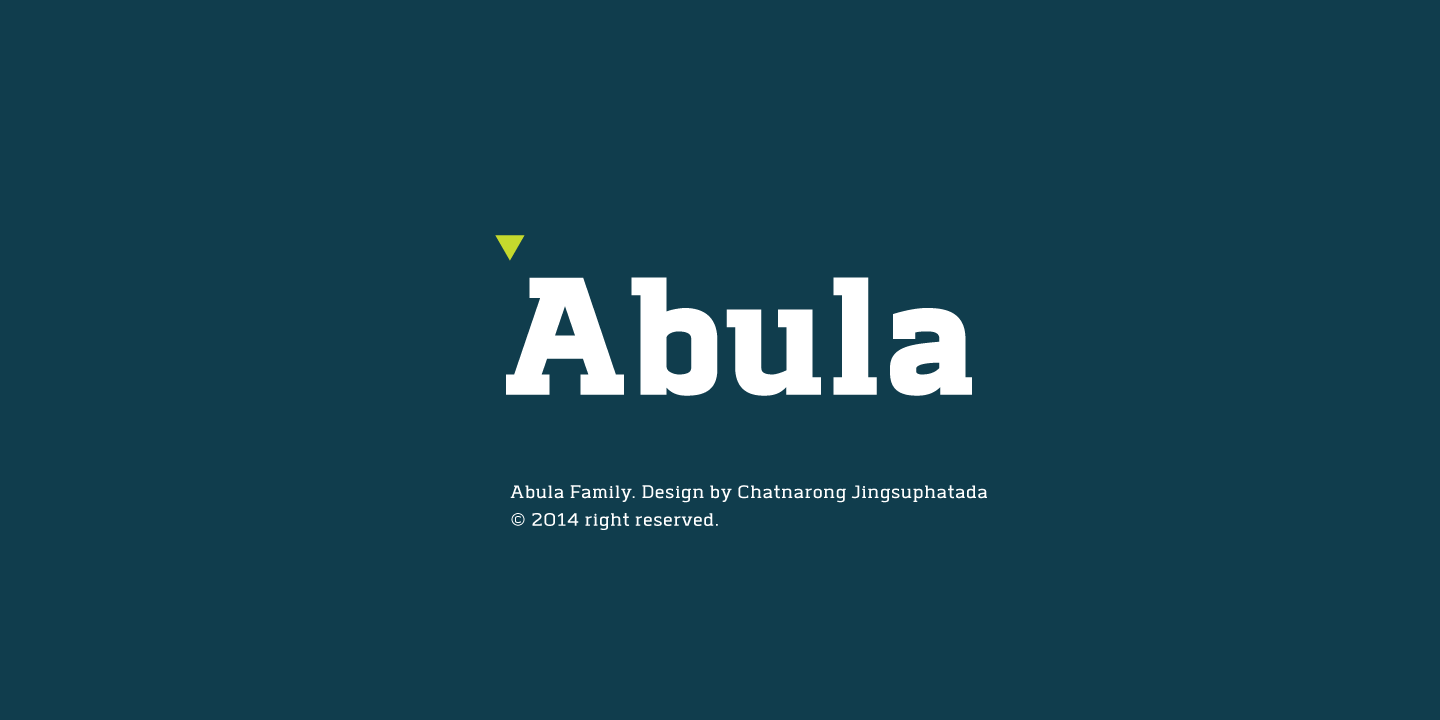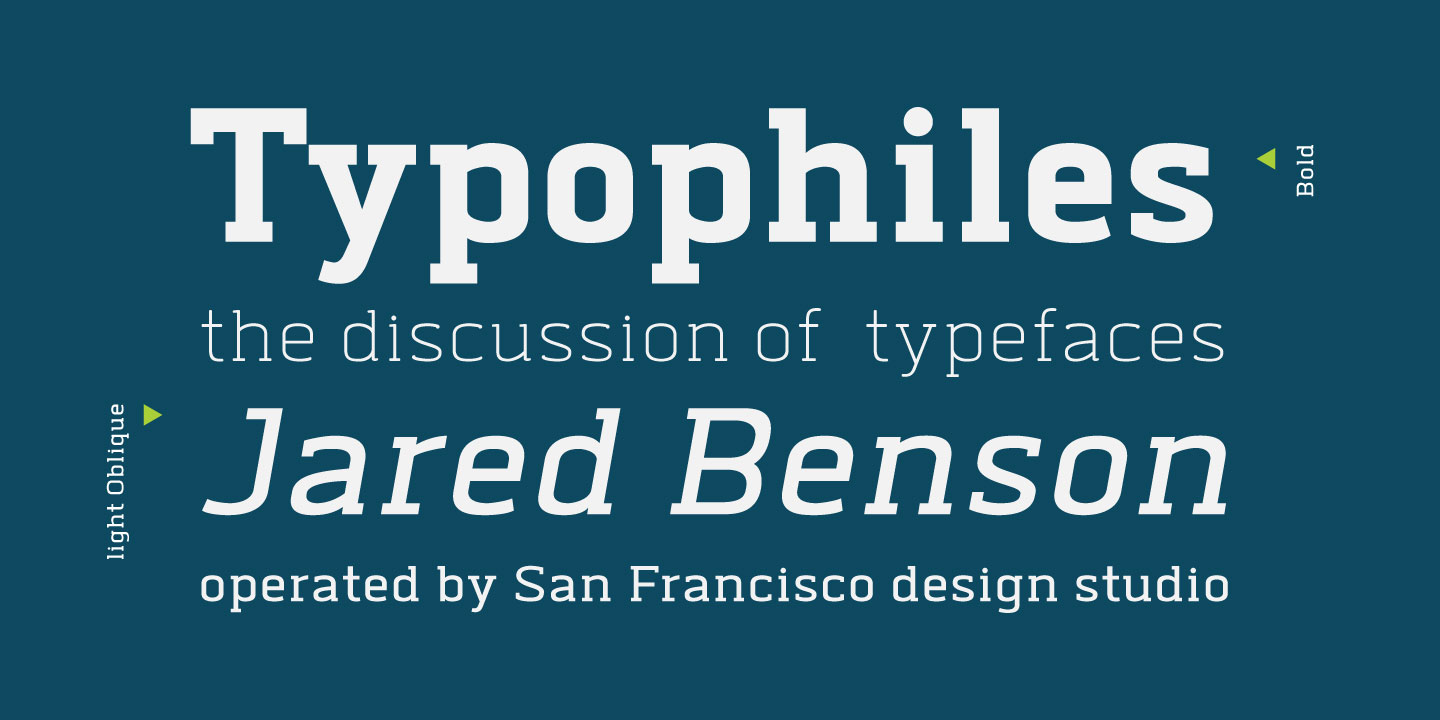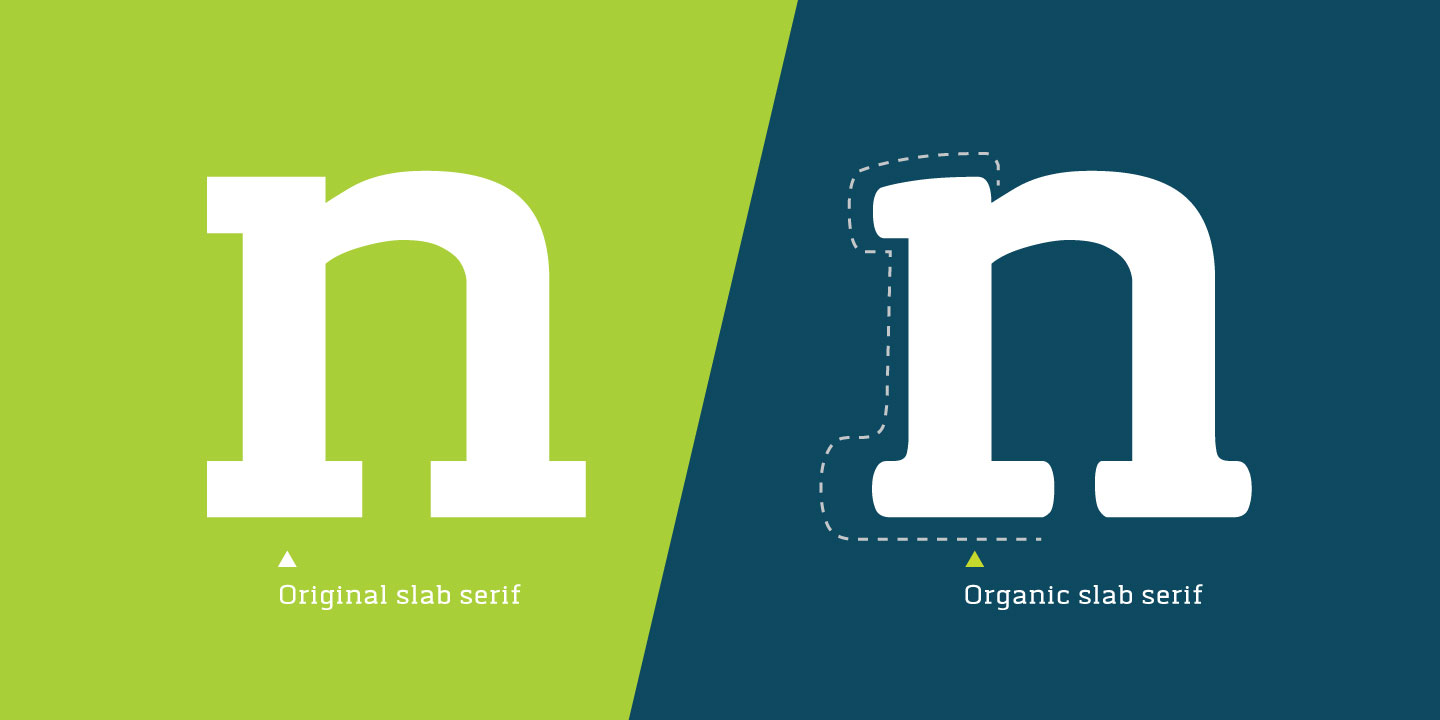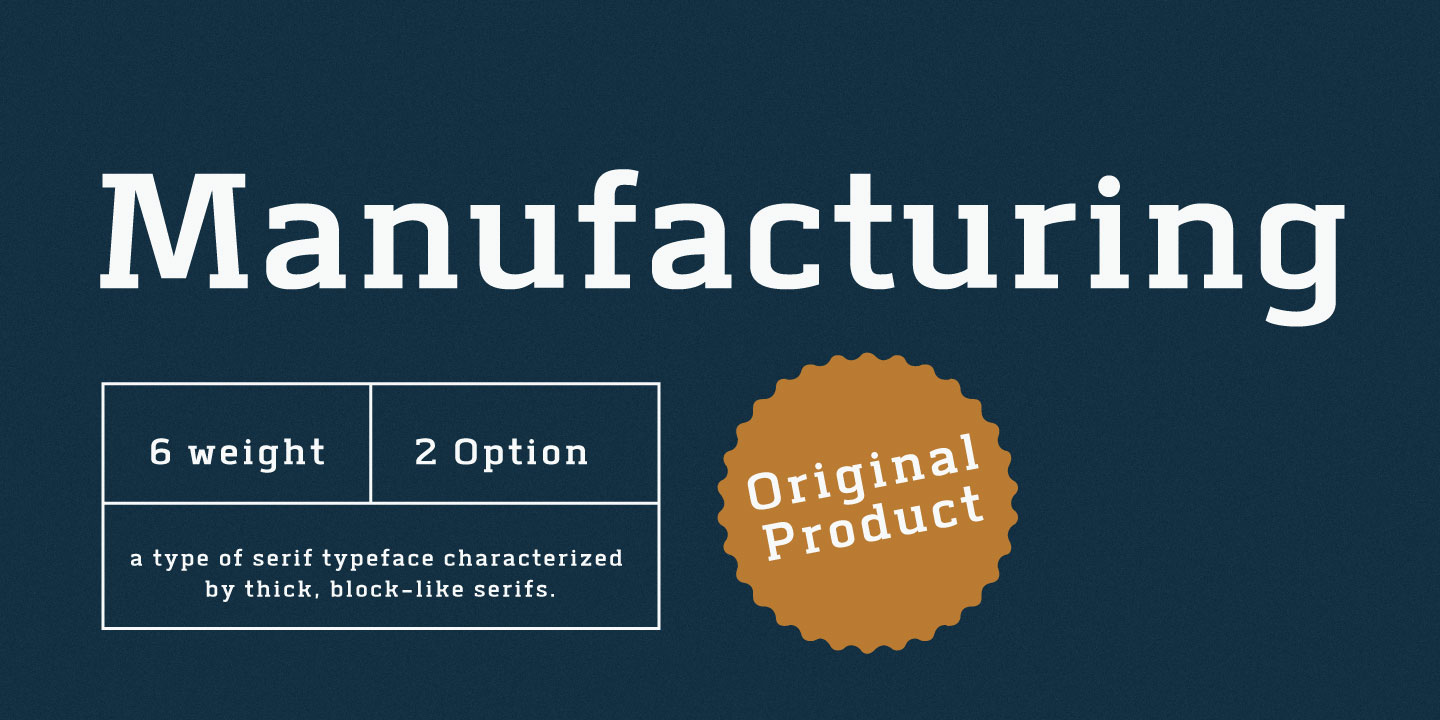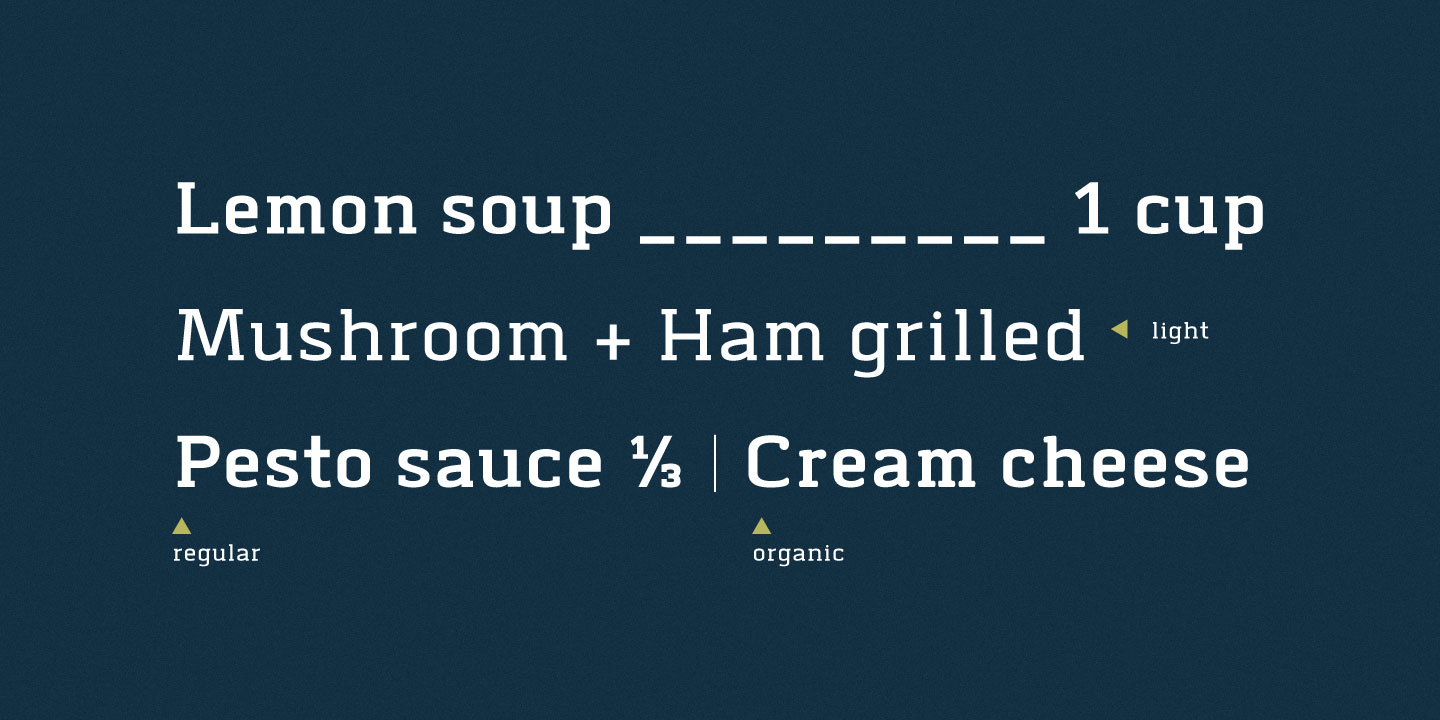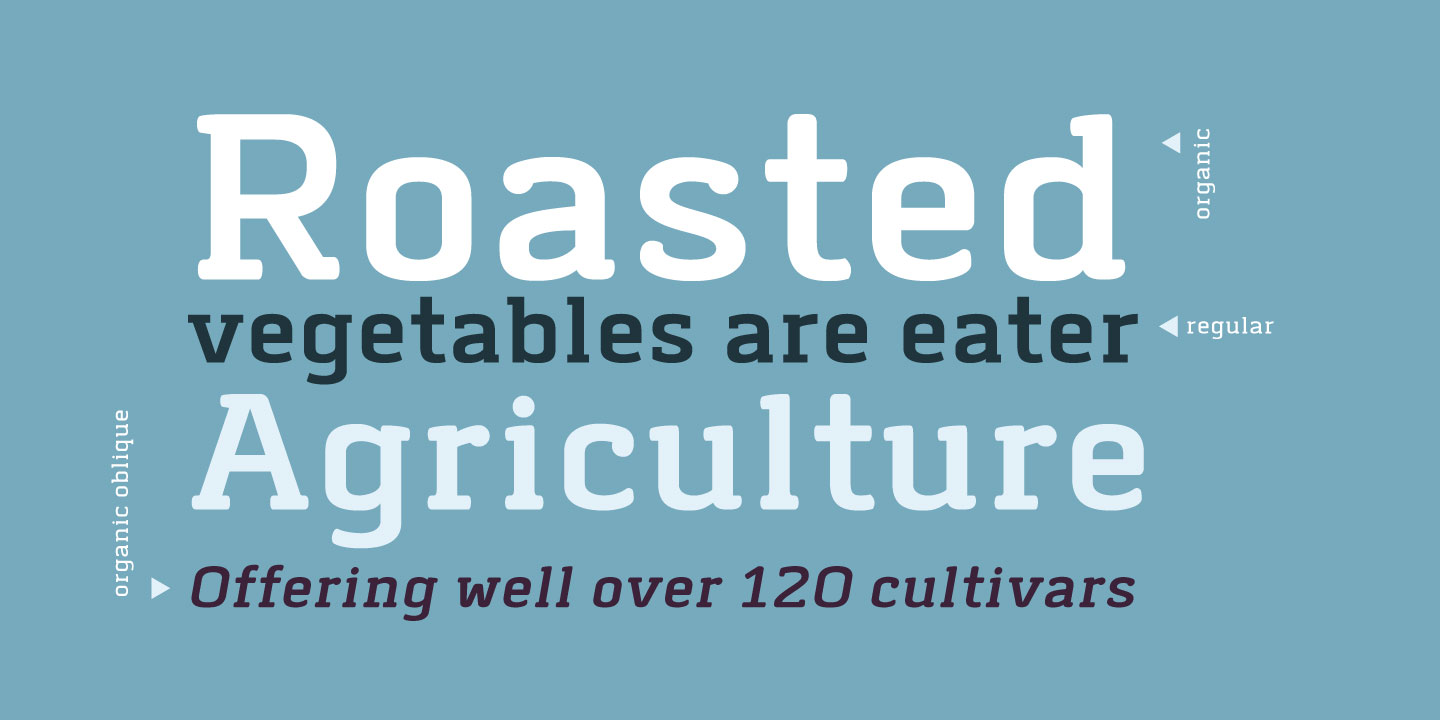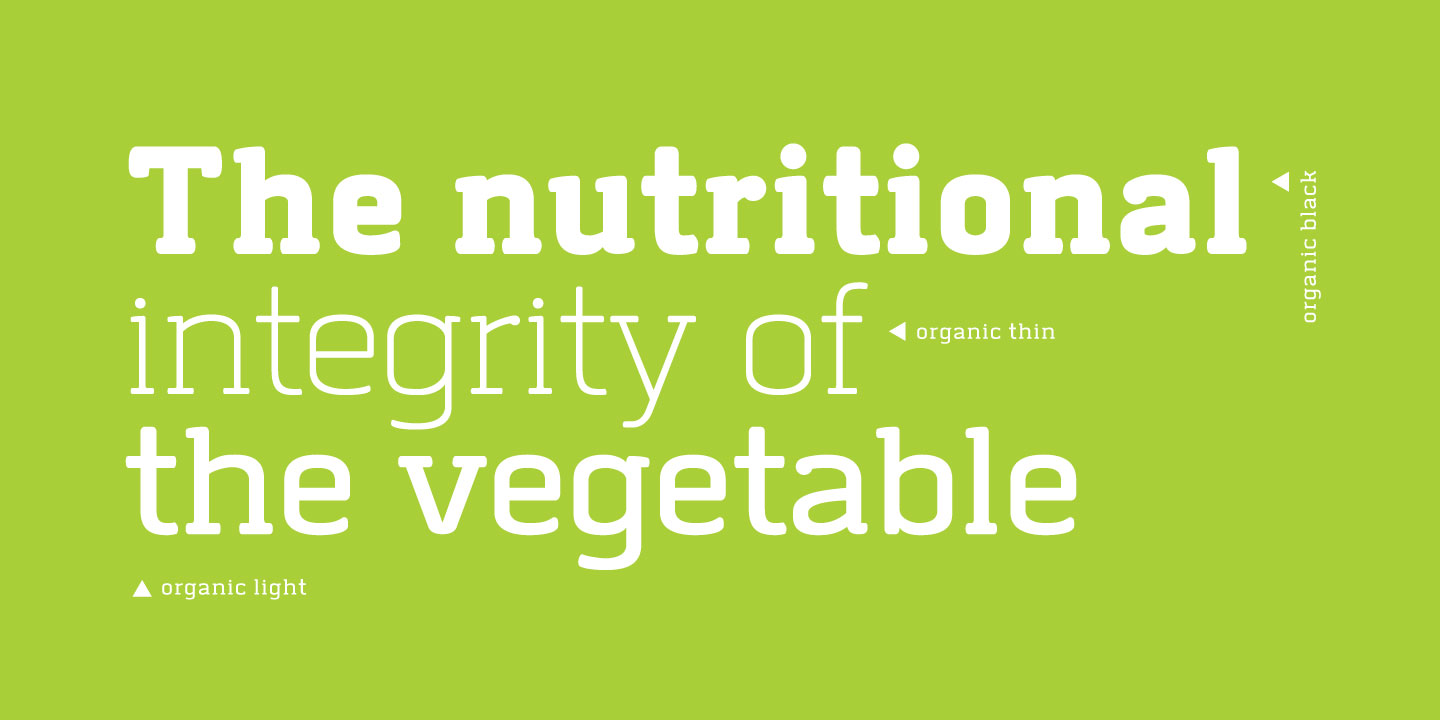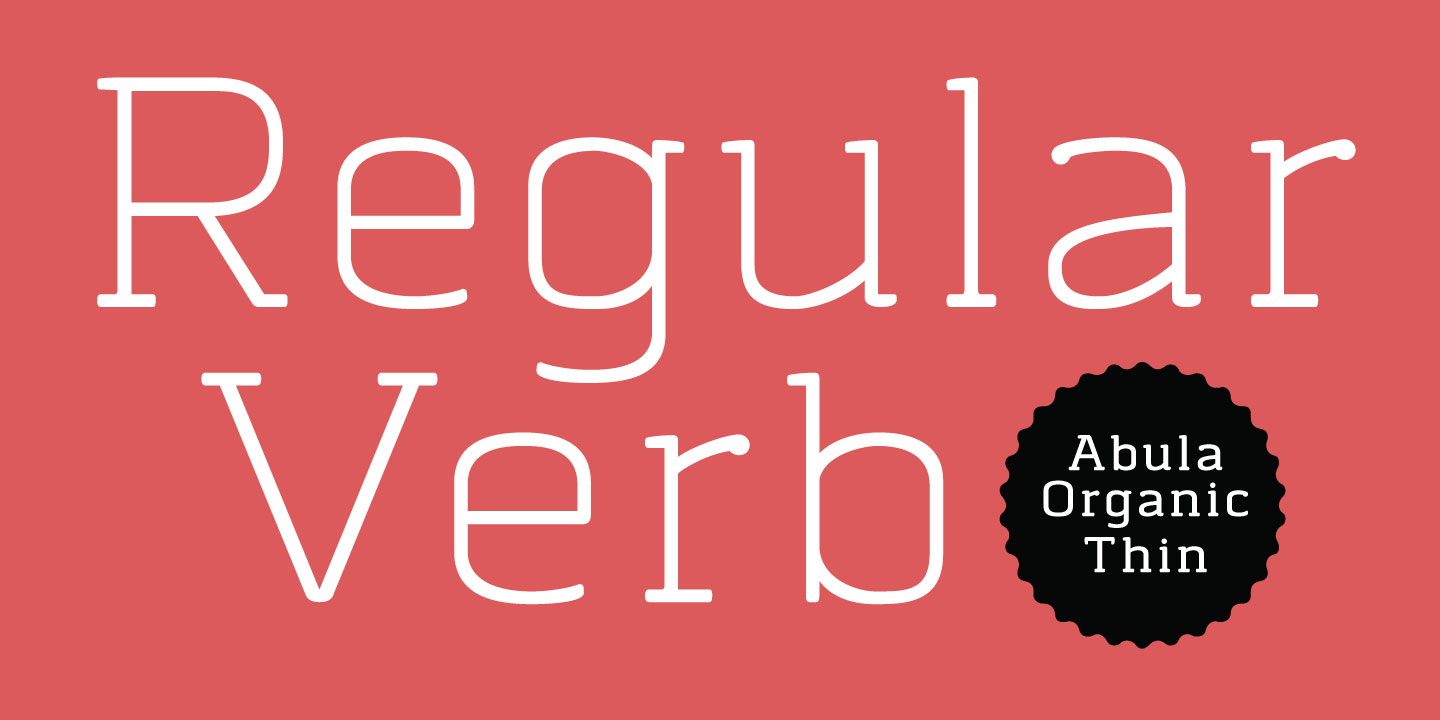
The results of Typesketchbook’s investigation give birth to a unique pair of the fonts, Original Slab Serif and Organic Slab Serif, that while stemming from the same structure, offer a different visual vibe and feel. Articles : Art4d Magazine(Thailand) Issue 207